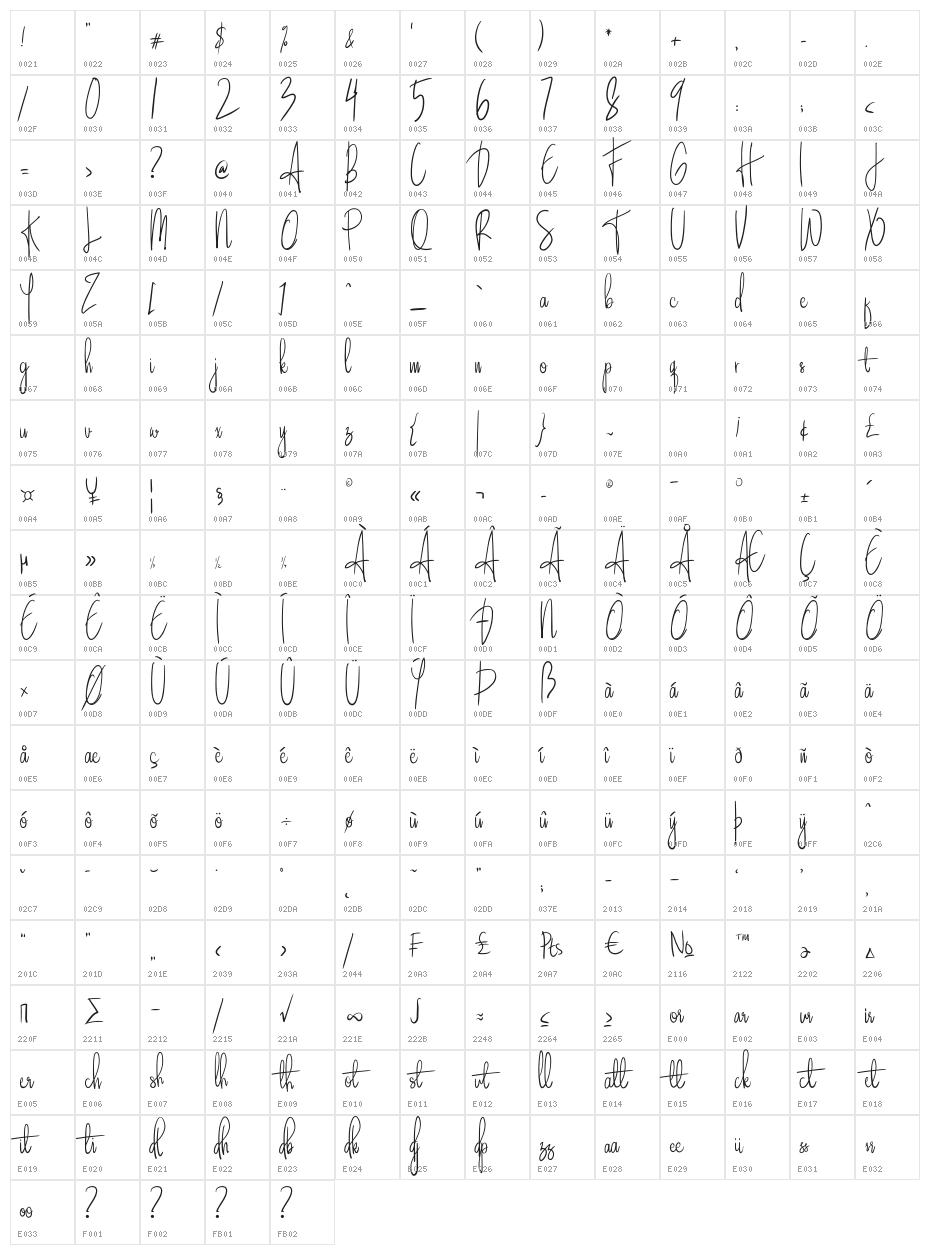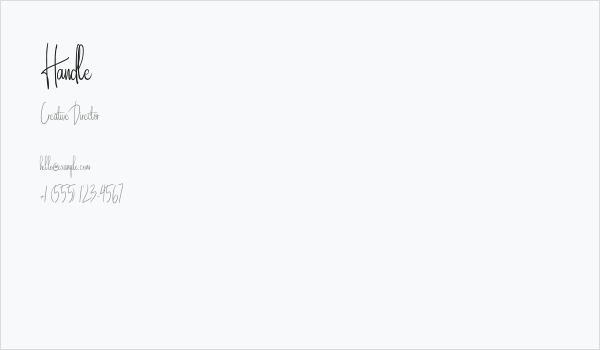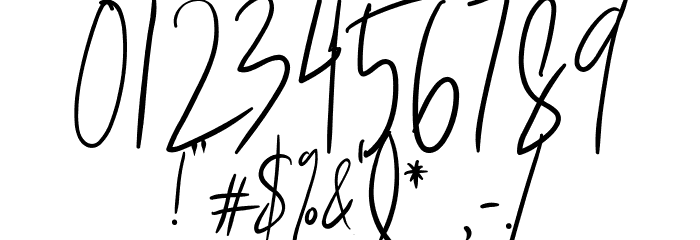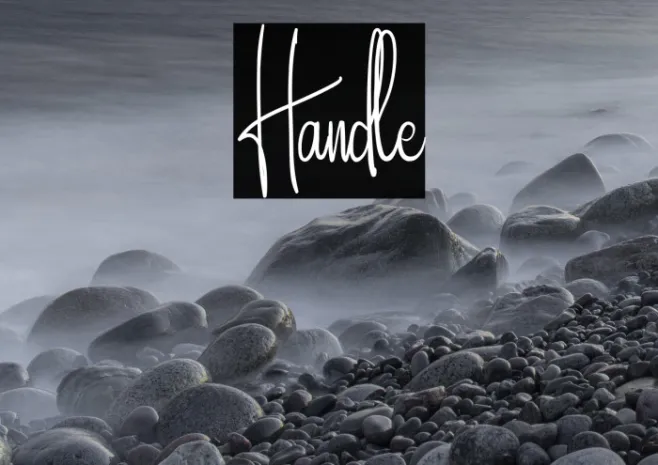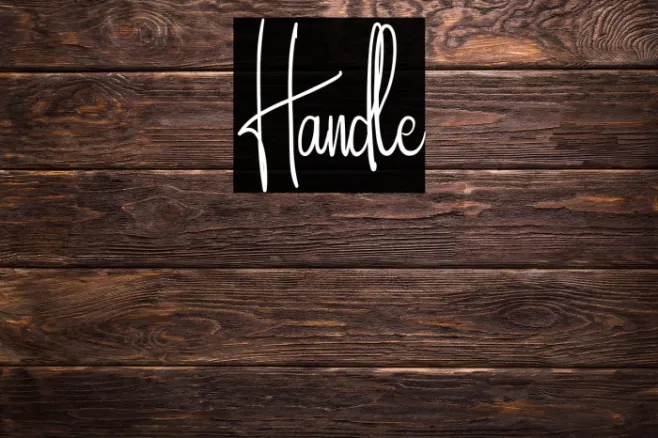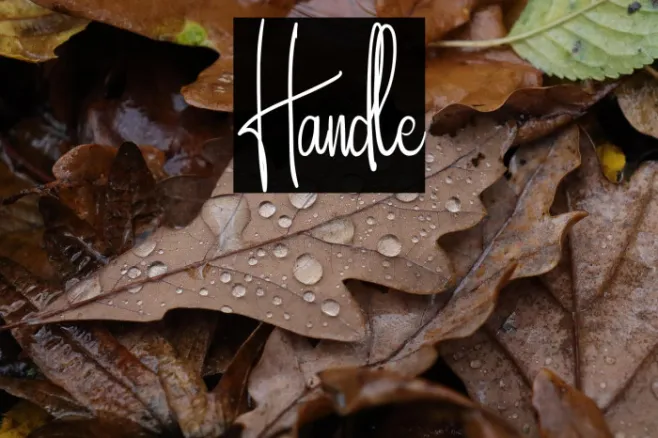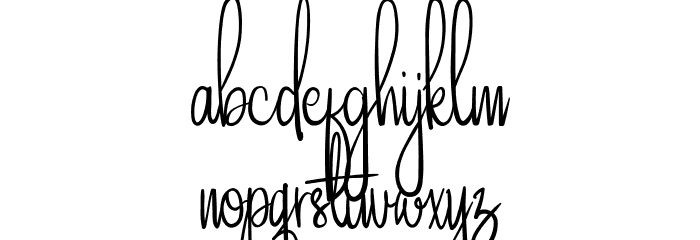
Handle Font
Handle Description
This font features a highly decorative and artistic style, characterized by its elongated and flowing letterforms. The uppercase letters are particularly intricate, with exaggerated loops and curves that give a sense of movement and elegance. The lowercase letters maintain a consistent style, with a more readable yet still artistic appearance. The numbers and special characters follow the same design principles, ensuring a cohesive look throughout. This font's unique style makes it stand out, offering a blend of sophistication and creativity.
| Use Case | Logos, Invitations, Artistic Branding |
| Proposed Projects | Ideal for creative projects such as invitations, greeting cards, branding for artistic ventures, or any design requiring a touch of elegance and flair. |